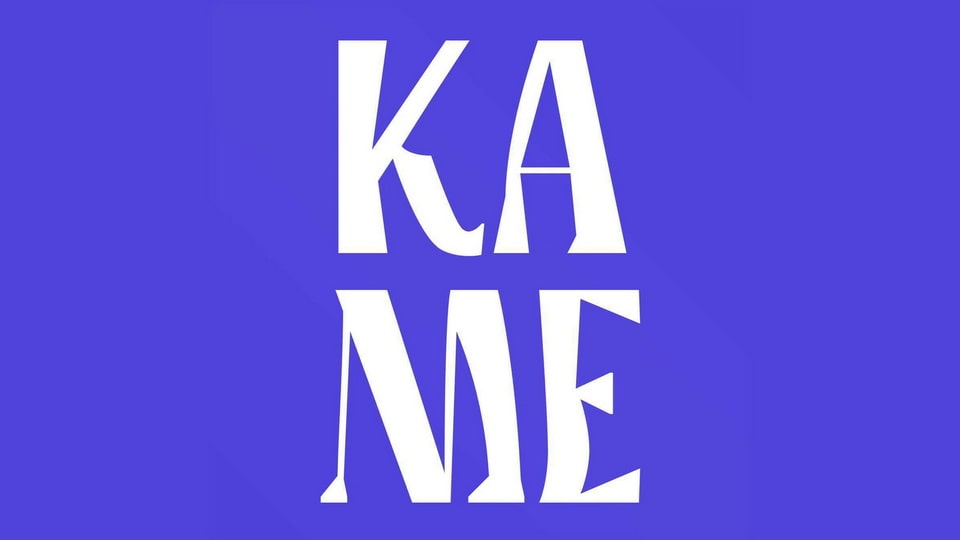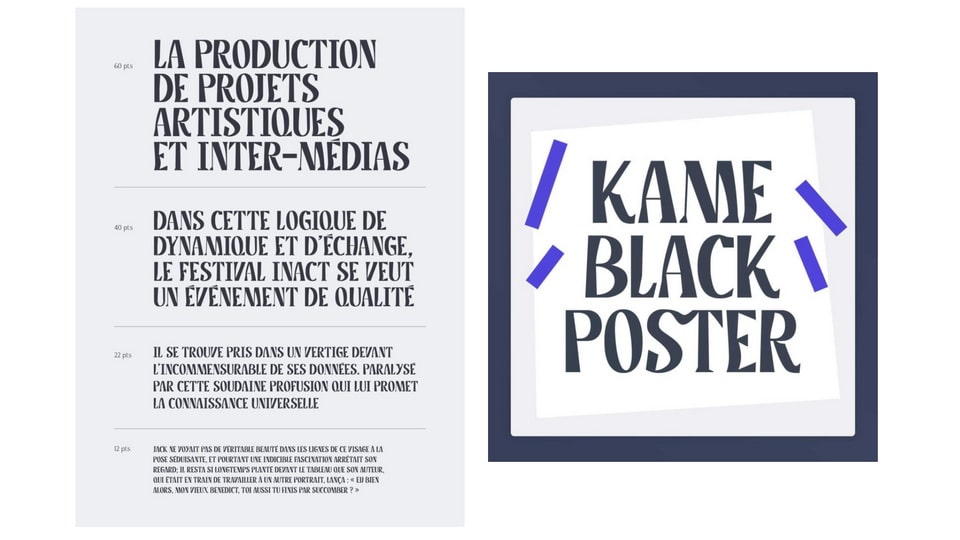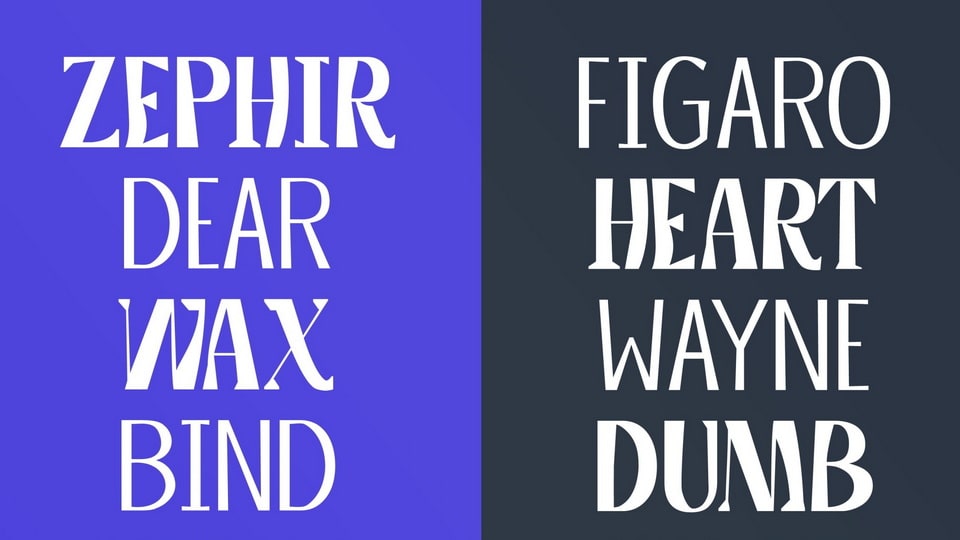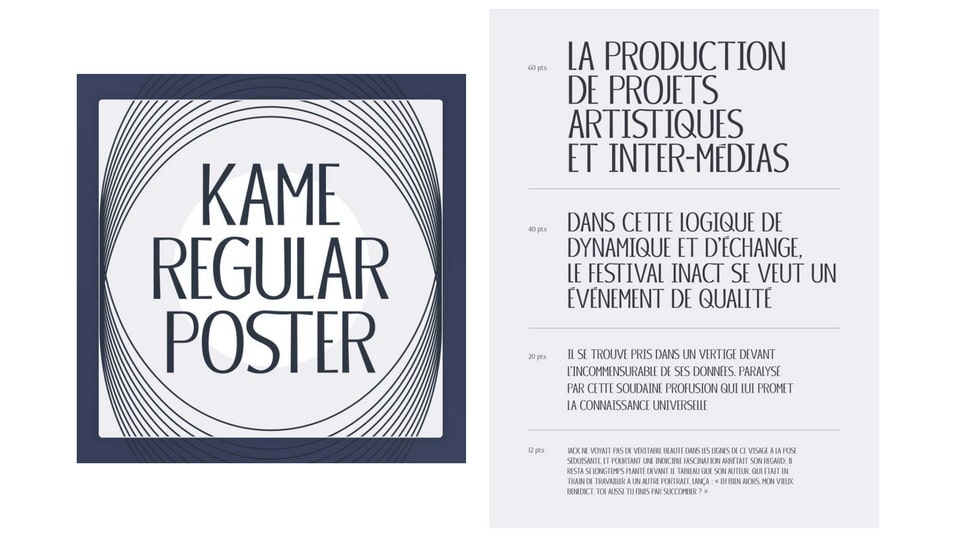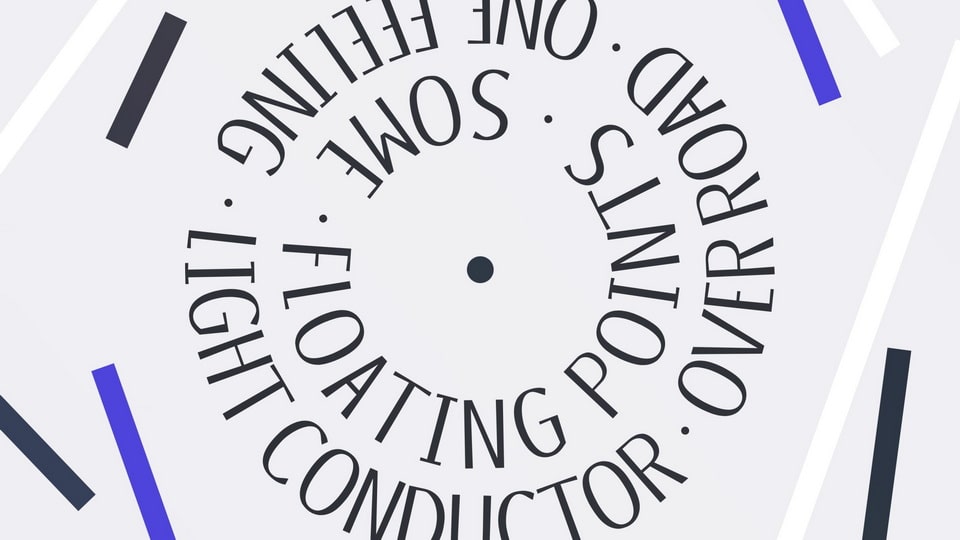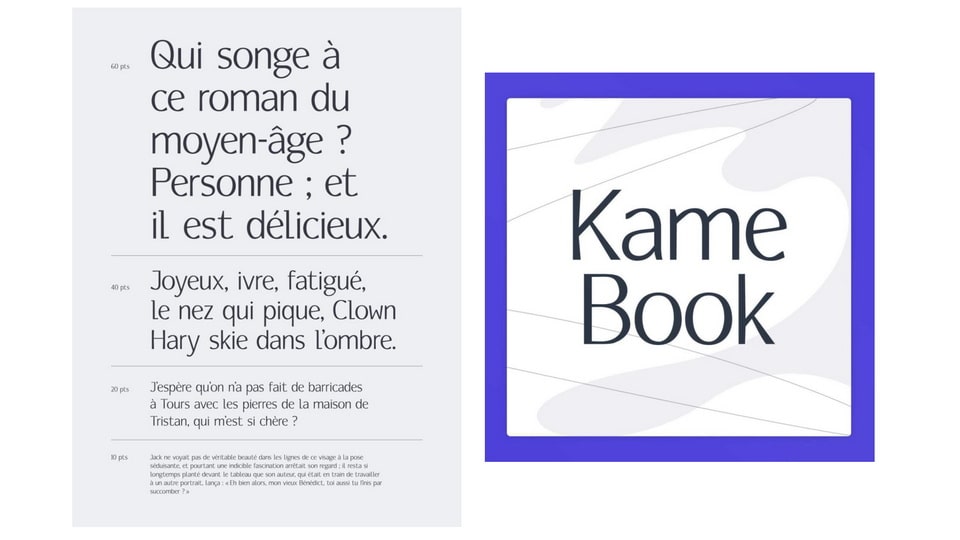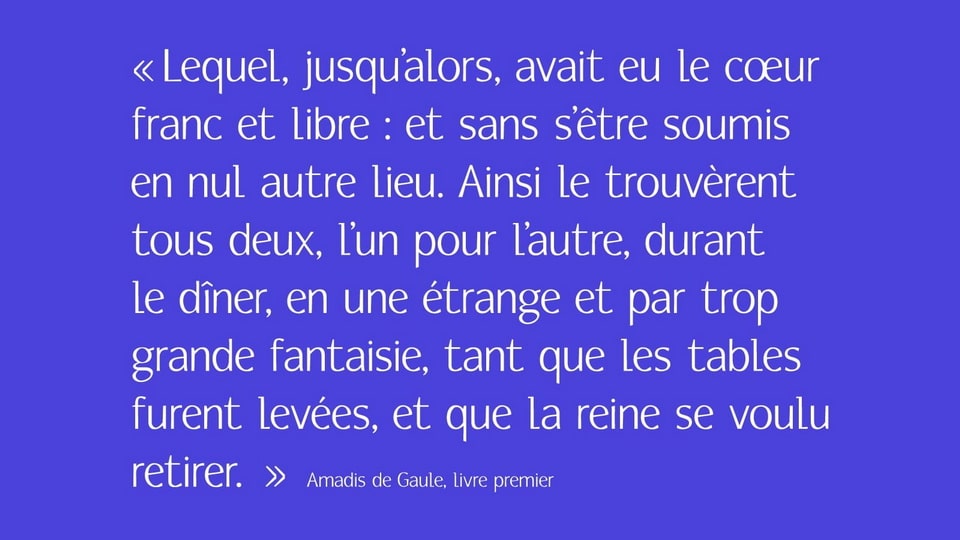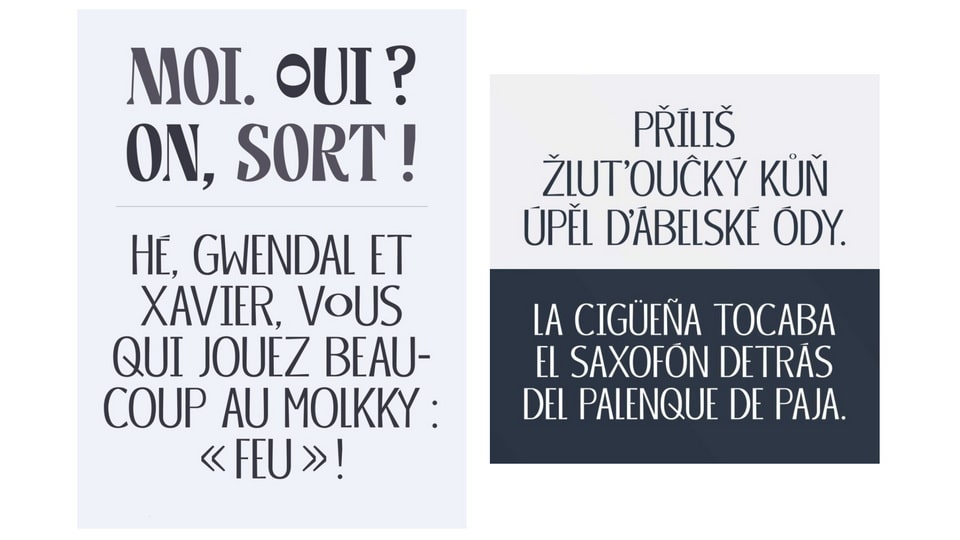
Kame is a hybrid and mutative typography with three weights. Acute, legible and performative, it brings trouble within the rigidity and strictness of compositions.
The two weights Kame Poster Regular and Kame Poster Black allow for cascading phrase arrangements and add importance to readability. Finally, a tiny one, the Kame Book, completes the family for common text uses.
Inspired by humanist font design and modern angularity, Kame cut the letters, lightening their display.